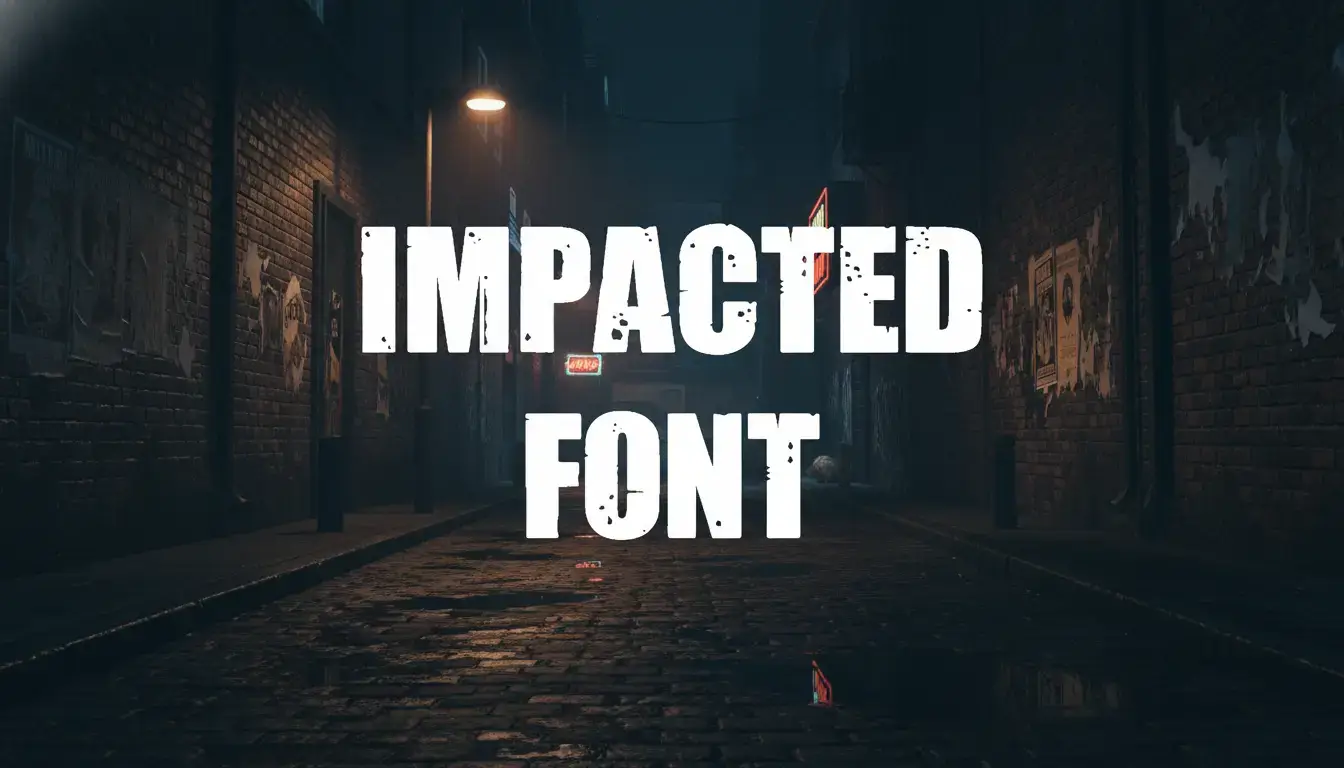
Impacted Font
Impacted
Impacted is a fancy font made by foxyfonts at dafont.com. Bold and full of character, it's built to stand out rather than blend in. You can download it for free and test it with your own words in the preview above.
With complete upper and lowercase letters and all ten digits, Impacted is ready for real wording, not just a single headline. Common punctuation such as &, !, ? and @ is included as well. It also has the accented letters you need for Spanish, French, German, Portuguese and Italian. On top of that, it includes Greek and Cyrillic characters.
Impacted is a natural fit for posters, logos and eye-catching headlines. Use it for one standout word or headline and let simpler fonts handle the rest.
Yes. Impacted includes the accented letters needed for Spanish, French, German, Portuguese and Italian, so it works for more than just English.